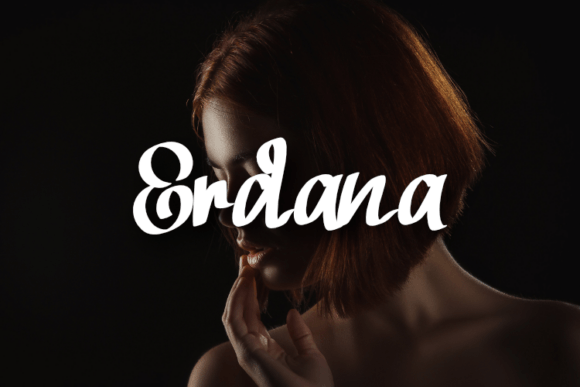
Unveiling Erdana: The Versatile Font Elevating Design in Apparel and Beyond
In the realm of design, particularly within the fashion industry, the right typography can make all the difference. A font can elevate a simple t-shirt or piece of clothing into a statement piece, capturing the essence of a brand or individual’s style. This is where Erdana comes into play – a versatile and stylish font designed to take your design game to the next level. In this article, we’ll explore the features, benefits, and applications of Erdana, the perfect choice for fashion-inspired creations and beyond.
What is Erdana Font?
Erdana is a meticulously crafted font, designed to blend seamlessly into the world of fashion and design. Its unique style and versatility make it an ideal choice for designers looking to create distinctive and captivating apparel, accessories, and other products. Whether you’re working on a clothing line, designing custom t-shirts, or exploring the world of fashion accessories, Erdana provides the perfect typographic solution.
Key Features of Erdana Font
- Versatility: Erdana is not limited to apparel design; it can be effortlessly used across a myriad of products and projects, making it a valuable addition to any designer’s toolkit.
- Visual Aesthetics: The font boasts a unique and stylish aesthetic that can instantly elevate the visual appeal of any design. Its ability to blend style with readability makes it perfect for a wide range of applications.
Applications of Erdana Font
Erdana’s versatility is one of its most compelling attributes. Here are some of the key areas where Erdana can make a significant impact:
- Apparel Design: From t-shirts and hoodies to dresses and hats, Erdana can be used to create visually stunning and cohesive brand identities for clothing lines.
- Accessories: Beyond clothing, Erdana can be used in the design of accessories such as bags, jewelry, and watches, adding a touch of elegance and sophistication.
- Marketing Materials: Erdana can also be used in marketing materials such as brochures, flyers, and posters, providing a consistent brand voice and aesthetic.
- Digital Media: In the digital realm, Erdana can enhance website headers, social media graphics, and email newsletters, ensuring a professional and stylish online presence.
Why Choose Erdana?
With so many fonts available, why should Erdana be your go-to choice? Here are a few compelling reasons:
- Unique Style: Erdana offers a unique style that can set your designs apart from the competition. Its distinctive aesthetic ensures that your creations stand out.
- Time-Saving: With Erdana, designers can save time and effort. The font’s clarity and readability mean that messages are conveyed effectively without requiring extensive adjustments.
- Support for Creative Freedom: Erdana supports creative freedom by providing a versatile and reliable typographic solution. Designers can focus on creativity rather than getting bogged down in technicalities.
Erdana is more than just a font – it’s a design companion that can elevate your creations to new heights. Its versatility, technical compatibility, and stylish aesthetic make it an invaluable resource for designers across various industries. Whether you’re a professional designer or a DIY enthusiast, Erdana provides the tools you need to create distinctive and impactful designs. Embrace Erdana in your design journey and experience the difference it can make.